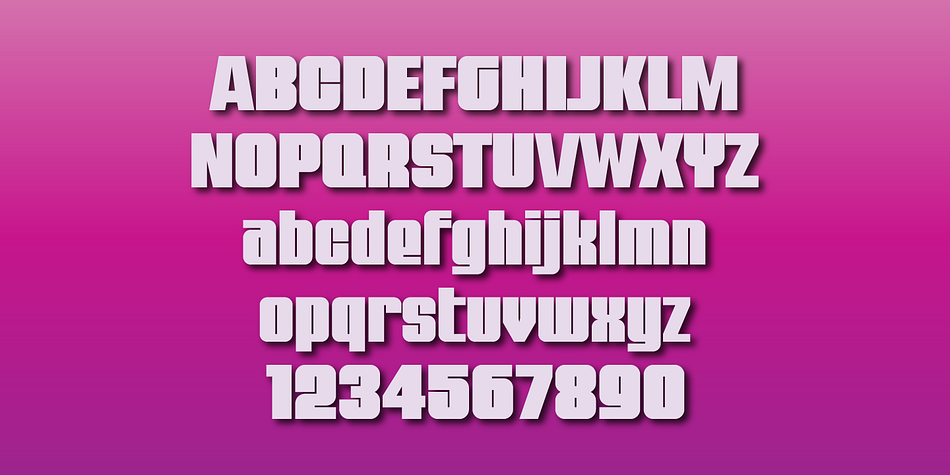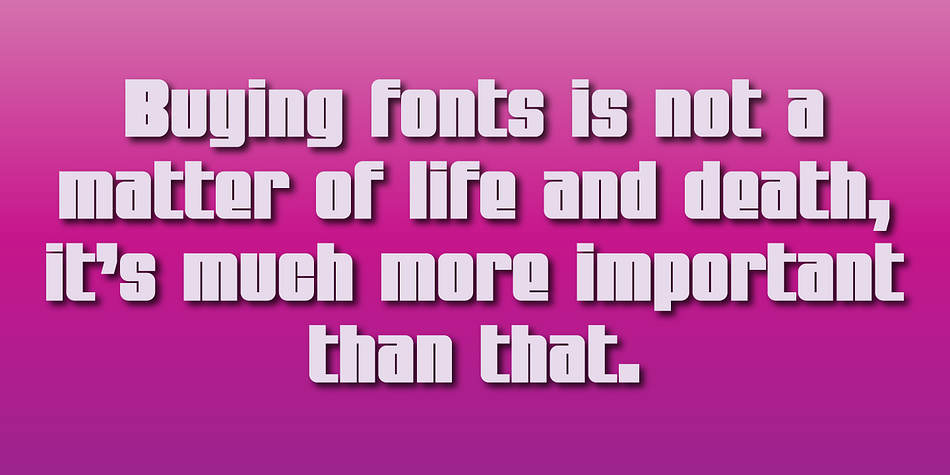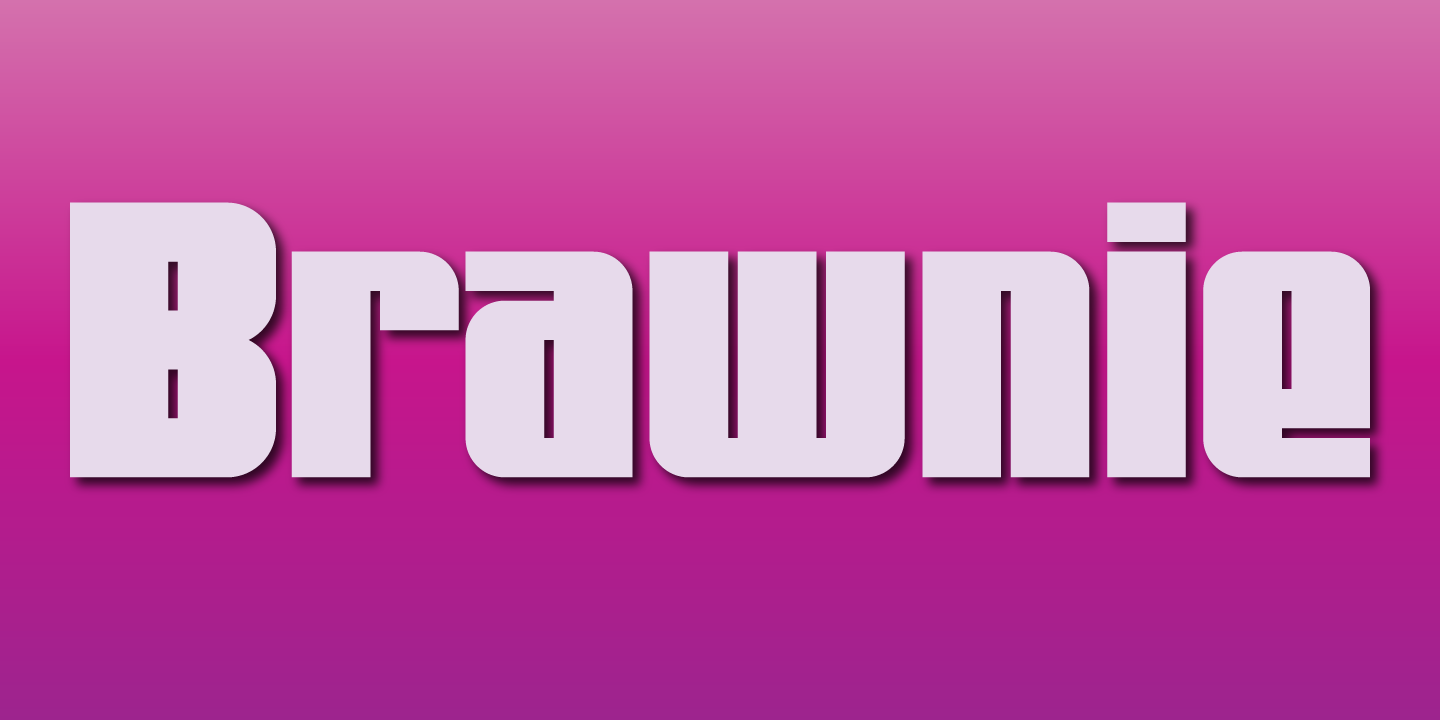
Designed by Gerald Gallo, Brawnie is a display sans font family published by Gerald Gallo Fonts.
Brawnie is a very bold, contemporary, sans serif font. It is ideal for headlines, titles, branding, and small blocks of text.